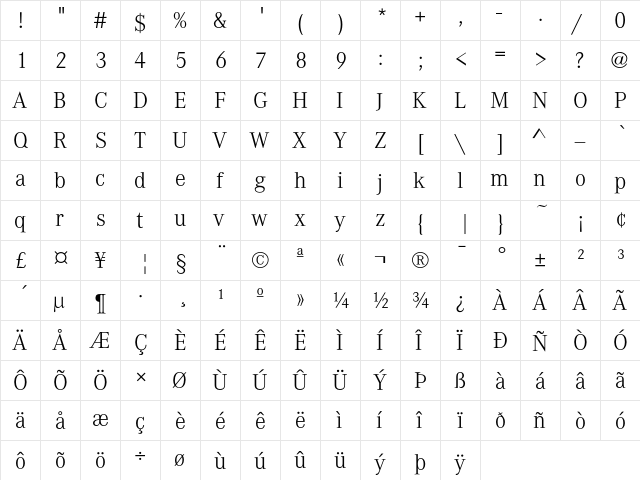
Corporate A Light
Design Context for Corporate A Typeface
Corporate A is a composed and adaptable typeface that performs quietly and consistently across a wide range of design contexts. Its slender proportions lend an understated elegance to any composition.
Pro Tip: Pair Corporate A with a font of contrasting weight or personality to build a more expressive typographic hierarchy.